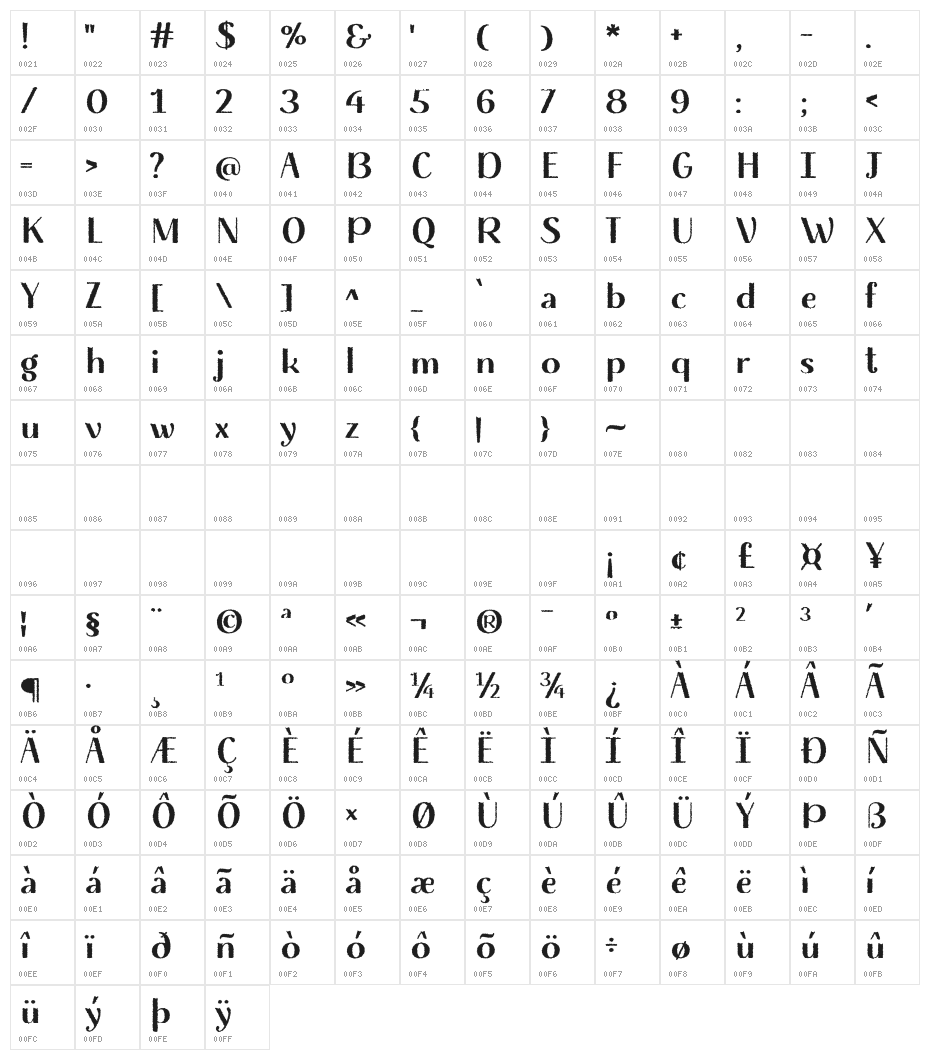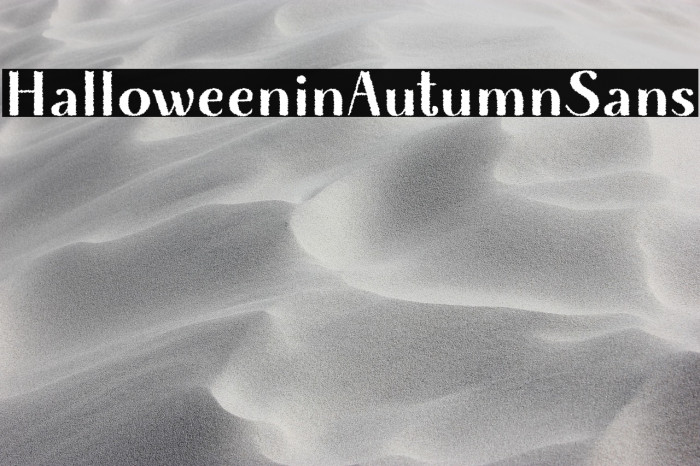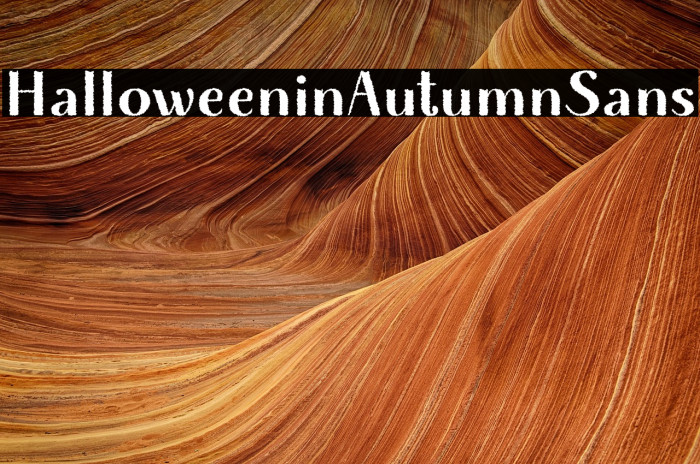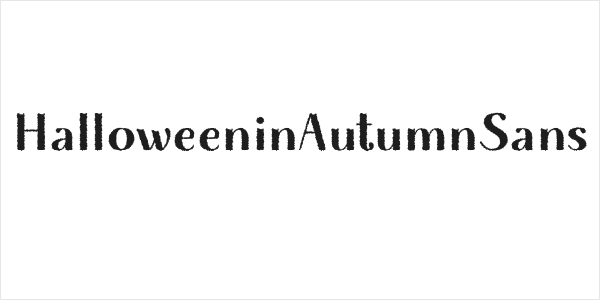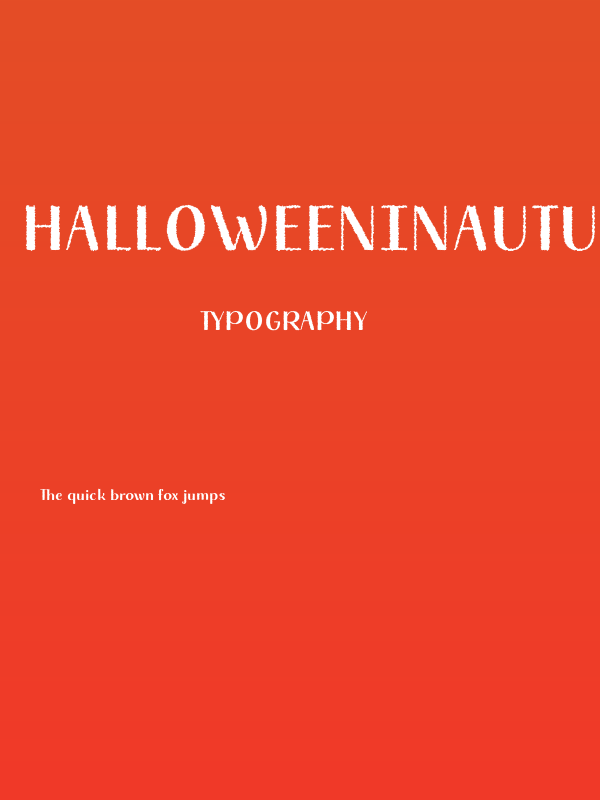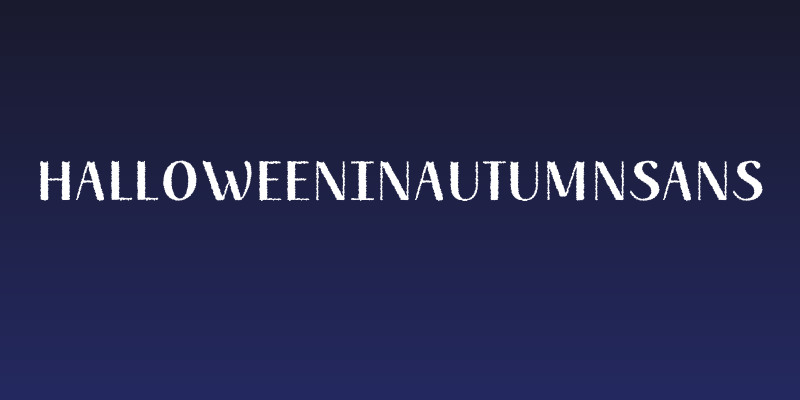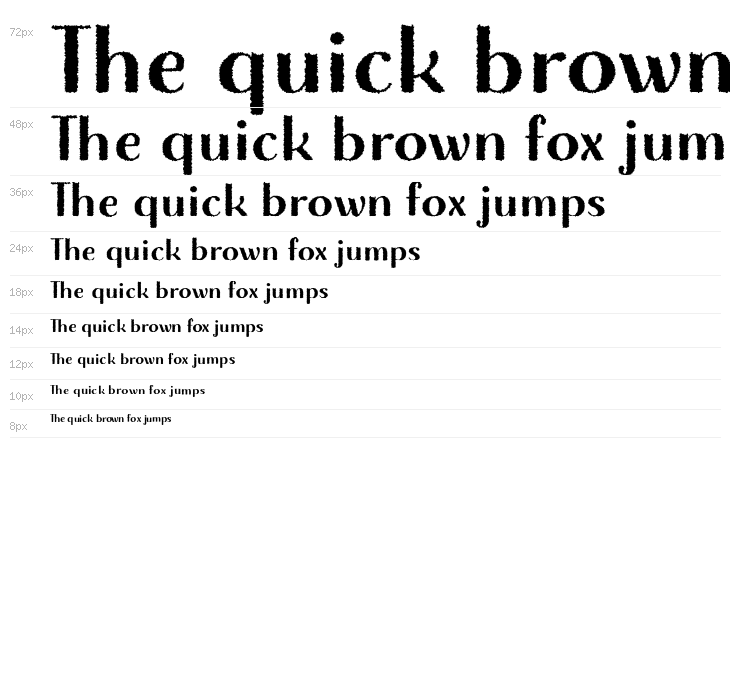
HalloweeninAutumnSans Font
HalloweeninAutumnSans Description
This font features a playful and slightly spooky style, perfect for seasonal themes. The characters have a hand-drawn appearance with uneven edges, giving them a rustic and organic feel. The uppercase letters are bold and slightly condensed, while the lowercase letters maintain a consistent weight with a whimsical touch. The numerals are clear and match the overall aesthetic, making them suitable for decorative purposes. Special characters are included, adding versatility for creative projects. The font's unique style makes it ideal for capturing attention and adding a festive flair to designs.
| Proposed Projects | Ideal for Halloween-themed designs, party invitations, seasonal posters, and creative branding projects. |